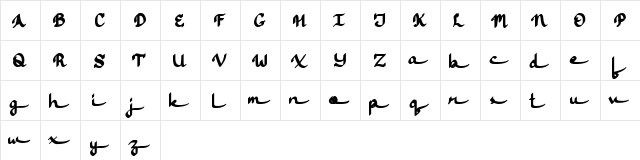
Jasmine Script regular
| Foundry | Katario Studio |
Design Context for Jasmine Script Typeface
Jasmine Script flows with the natural rhythm of handwritten lettering, making it ideal for designs that call for warmth and personal expression.
Font Pairing: Combine Jasmine Script with a simple geometric sans for maximum contrast — the tension between flowing curves and clean structure is a classic typographic pairing.
Pro Tip: Pair Jasmine Script with a clean sans-serif for supporting text. The contrast between fluid script and geometric structure creates an elegant typographic hierarchy.